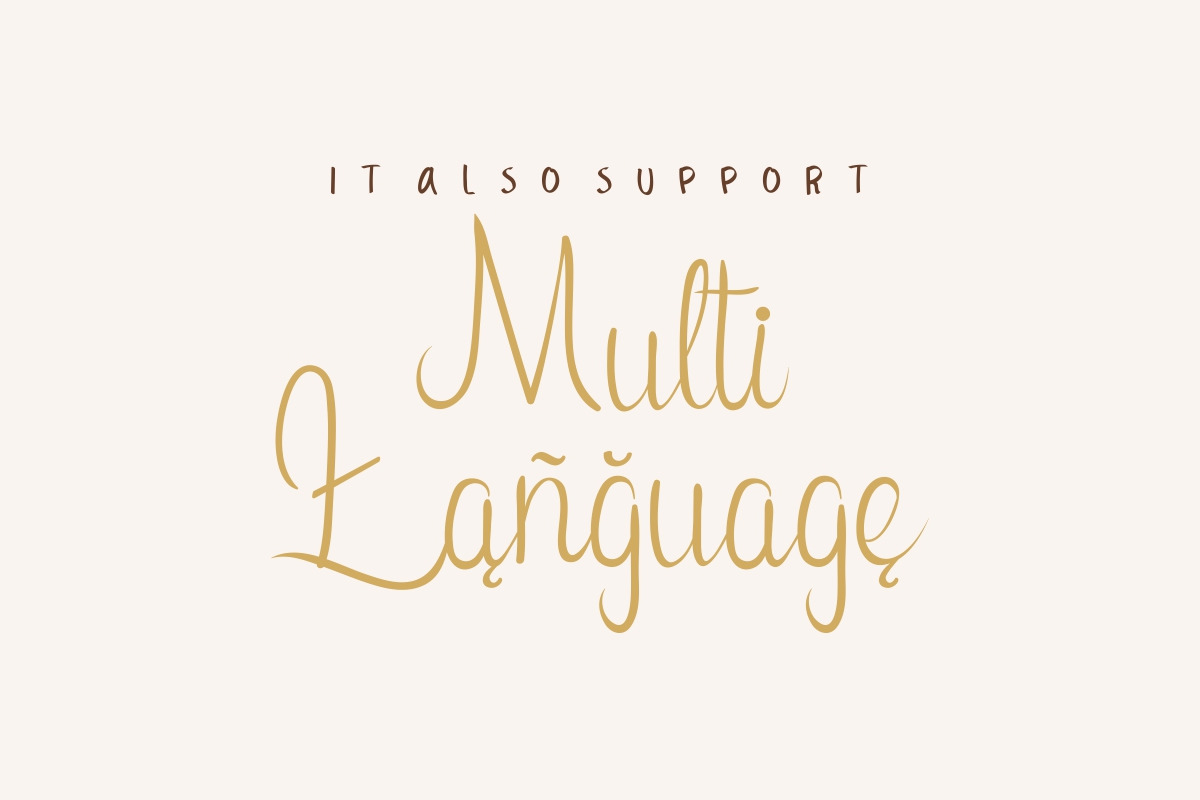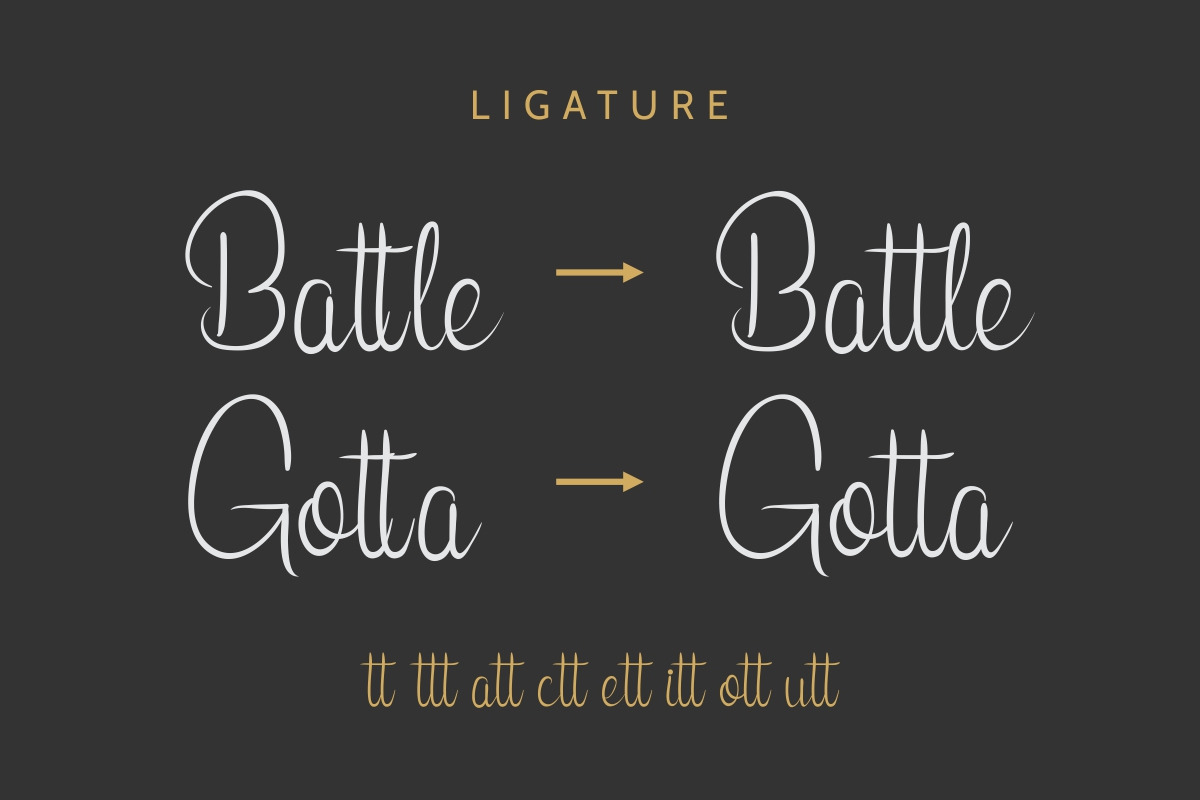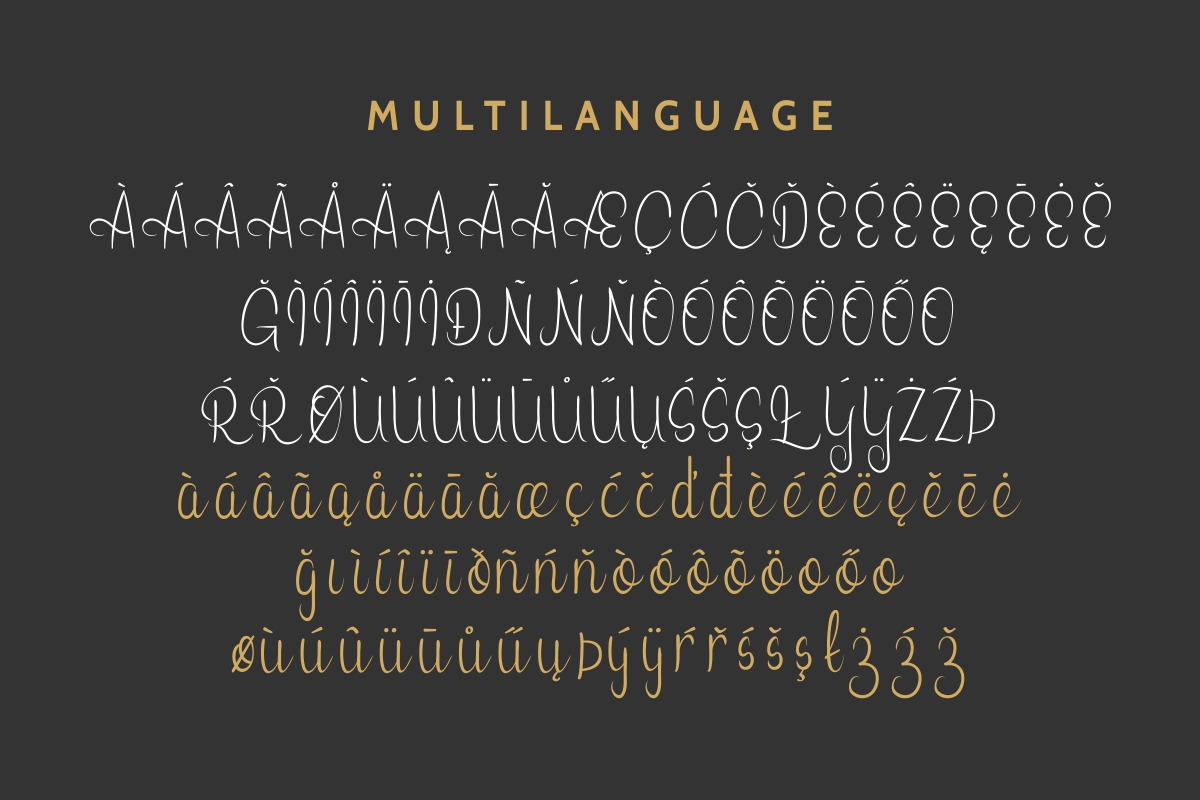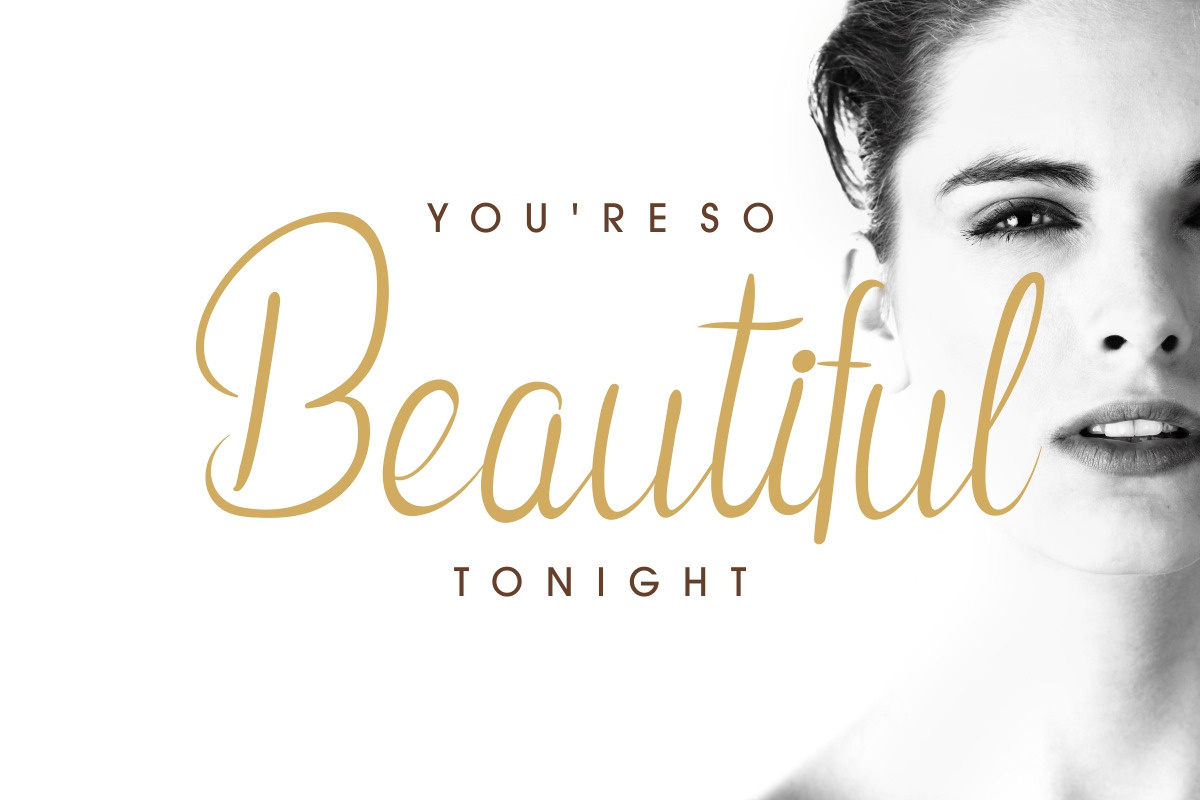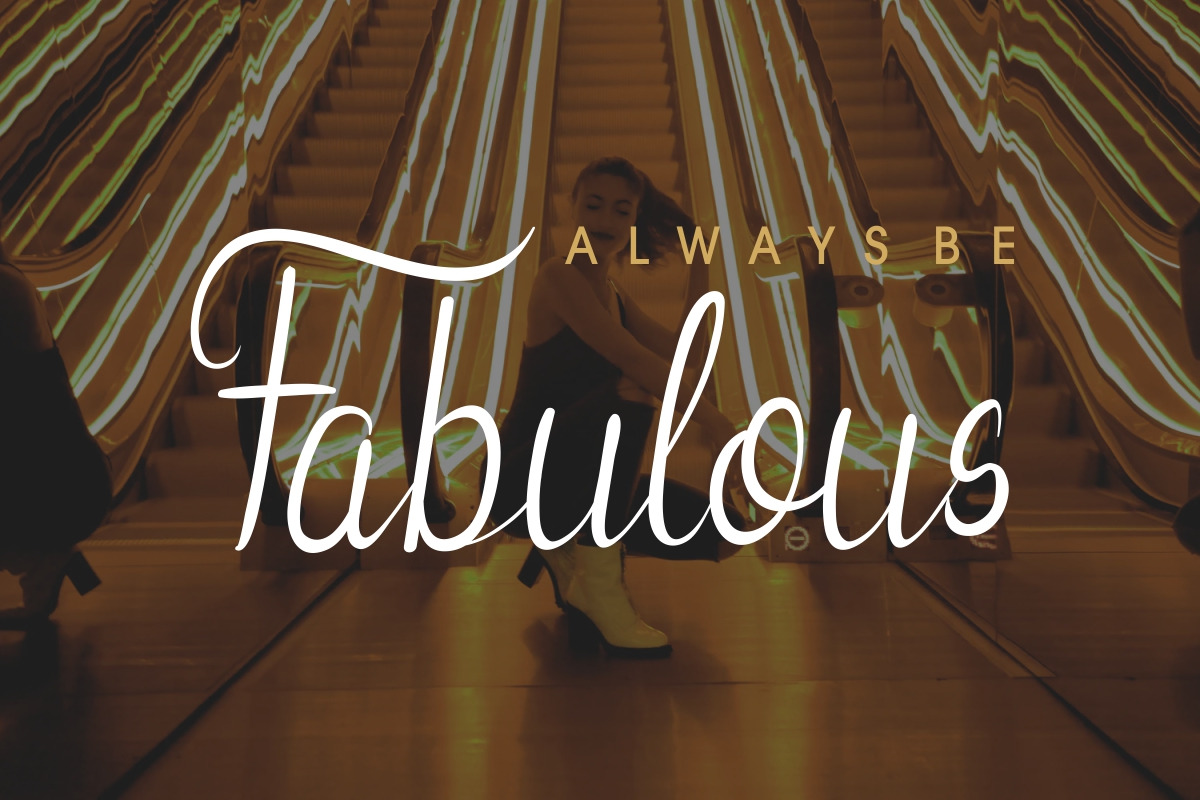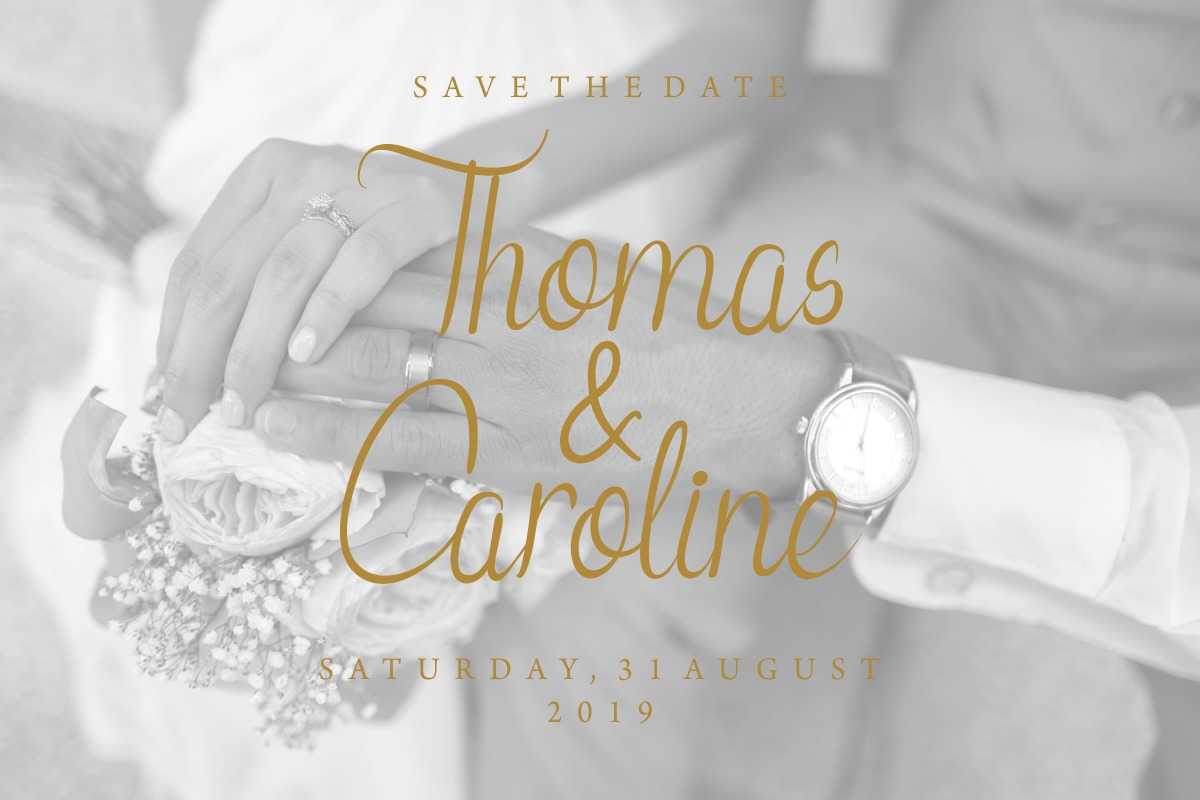
Leonita Script Font
A modern calligraphy Script Font!
Leonita is a new calligraphy script font with beautiful characters. It has a natural, elegant, and stylish style. It comes with two style choices : Regular and Italic. It also support multiple accents
Perfect for many industries and projects : Wedding, professional, person name, signature, modern, law firm, makeup artist, photography, travel, hotel, fashion, cafe, cake-food etc